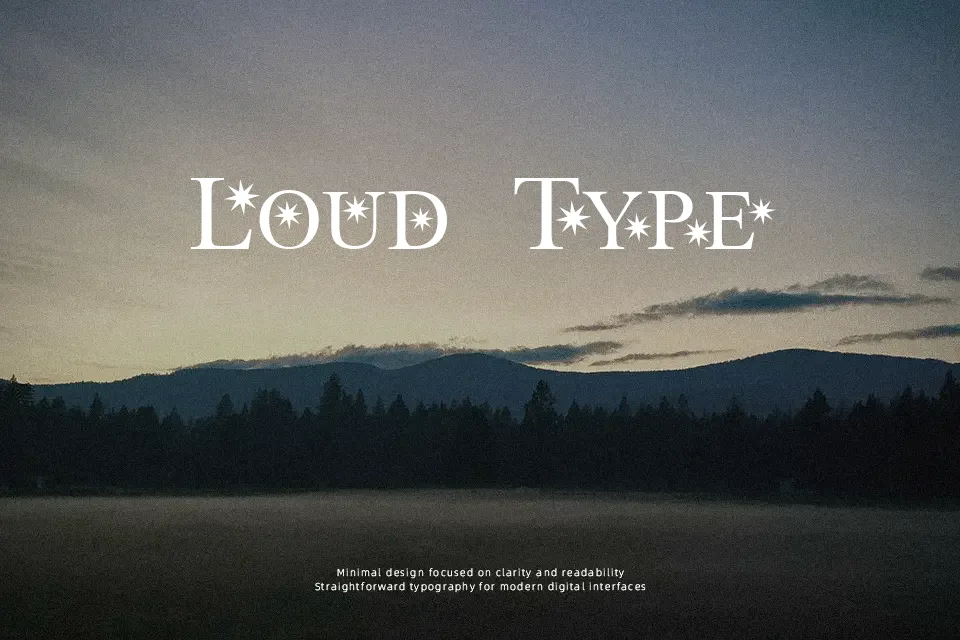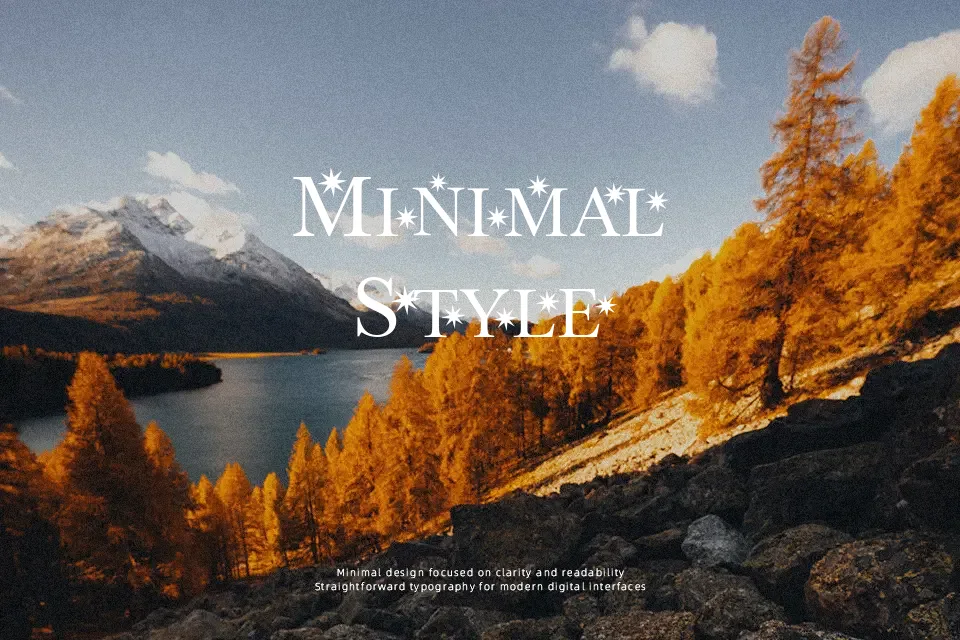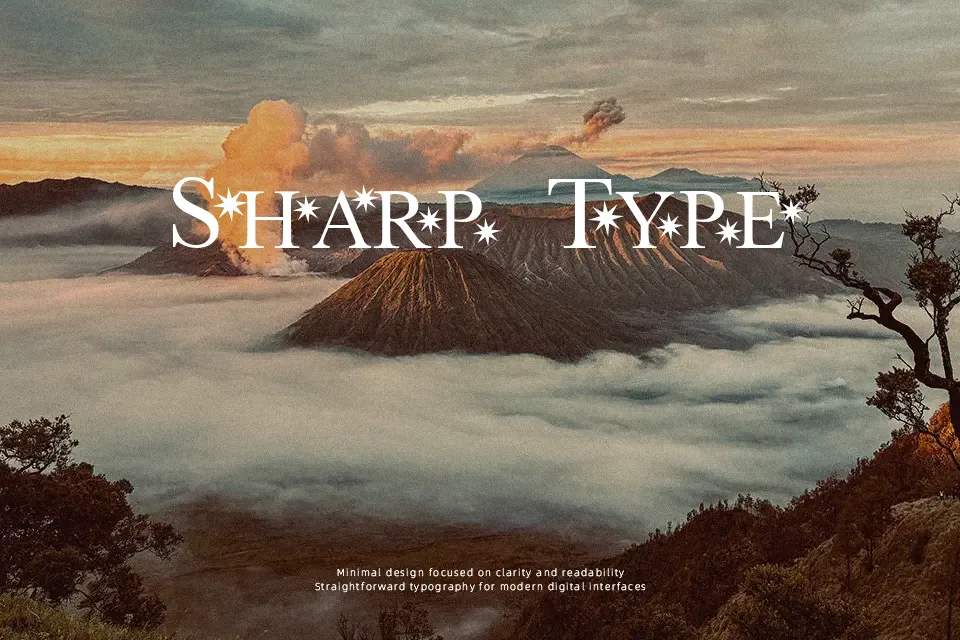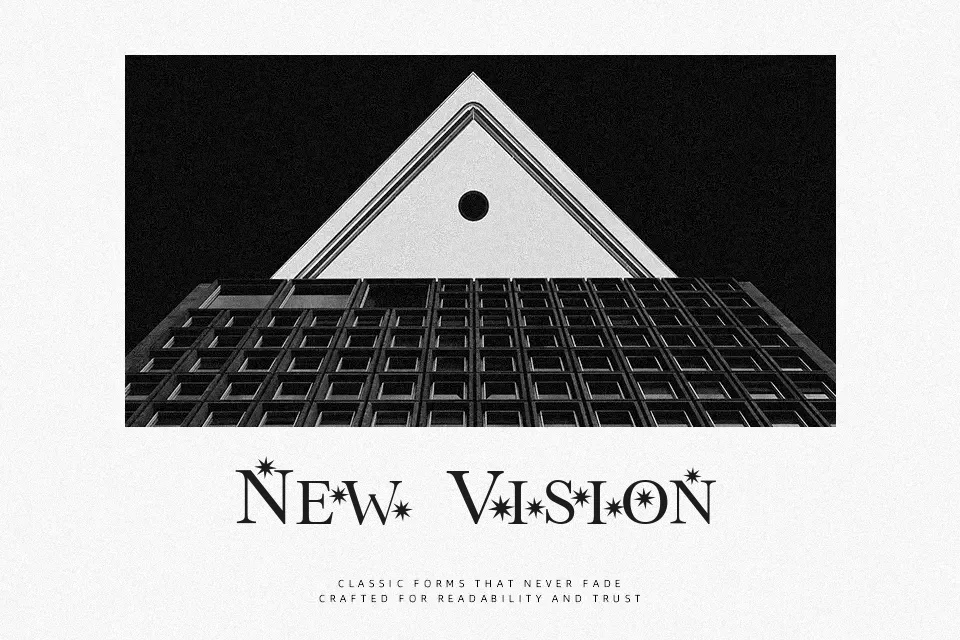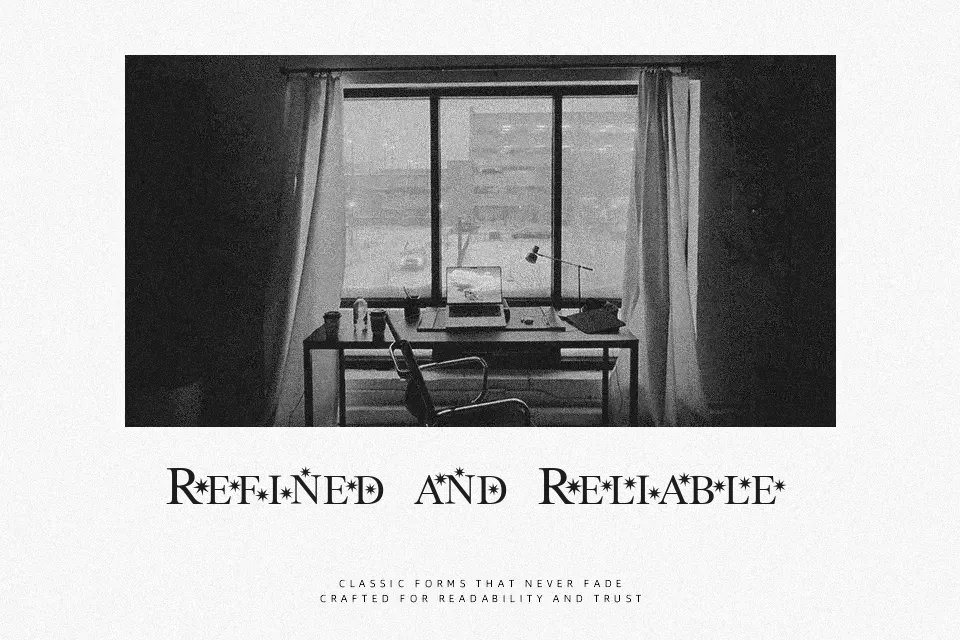
Star Hound Font
Star Hound Font is a decorative serif typeface defined by structured strokes and star-shaped cutouts embedded directly into each character. The letterforms feature moderate stroke contrast and classical Roman proportions, paired with slightly wide spacing to give every glyph breathing room. This typeface performs best in large display settings such as vintage event posters, thematic board game packaging, and stylized chapter headings. However, the prominent star motifs cluster together and cause visual clutter when reduced to small body text. In extended paragraphs, the ornamental details disrupt text flow, confirming that the design works most reliably as a bold display accent for short titles.
Best For: vintage event posters, thematic board game packaging, retro book covers, fantasy headline banners
Not Ideal For: continuous body text, mobile interface labels, corporate documents, dense editorial layouts
Perfect for branding, gaming, and headline, with a artistic and decorative style.